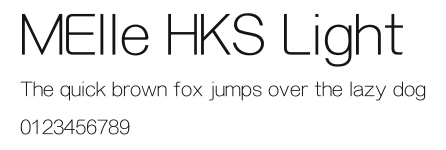
• Font Name: MElle HKS Light
• Full Font Name: MElle HKS Light
• Manufacturer: Monotype Imaging Inc.
About MElle HKS Light.ttf
MElle HKS Light.ttf is a modern, elegant sans-serif font designed for ultimate readability and visual harmony. Perfect for branding, headlines, web design, and print materials.